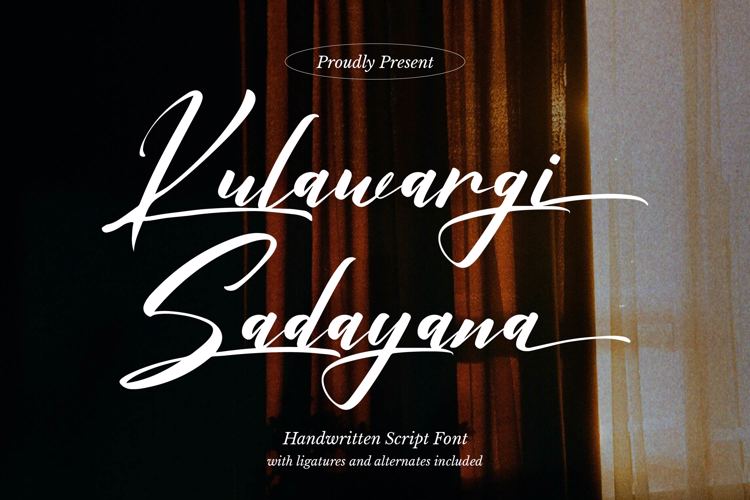
Kulawargi Sadayana Font
About Kulawargi Sadayana Font
Kulawargi Sadayana | Handwritten Script Font is suitable for any projects such as: logos, branding projects, homeware designs, product packaging, mugs, quotes, posters, shopping bags, t-shirts, book covers, name card, invitation cards, greeting cards, label, photography, watermark, special events, and all your other lovely projects that need a Handwritten Script Font taste.